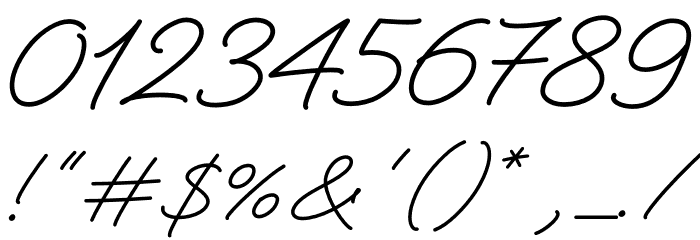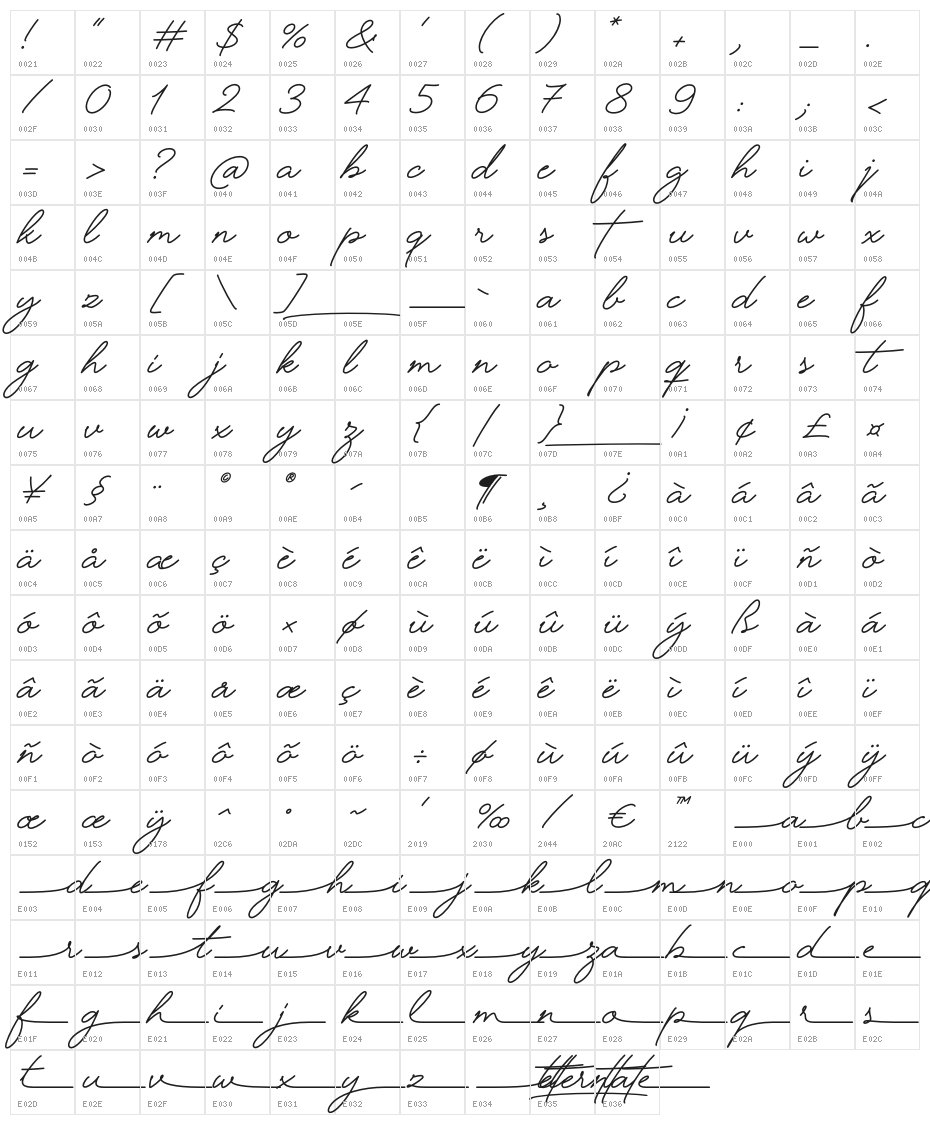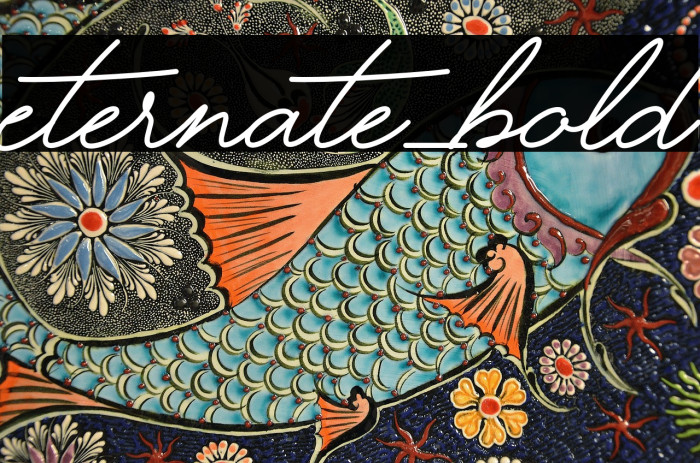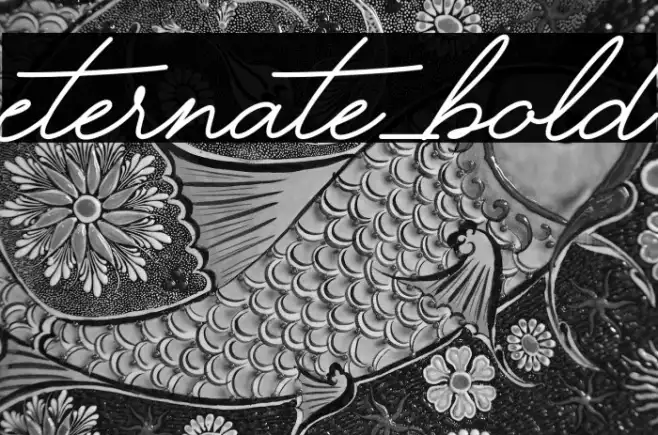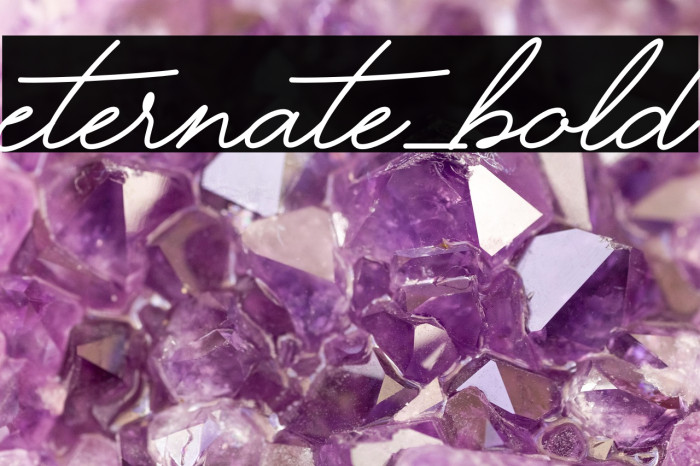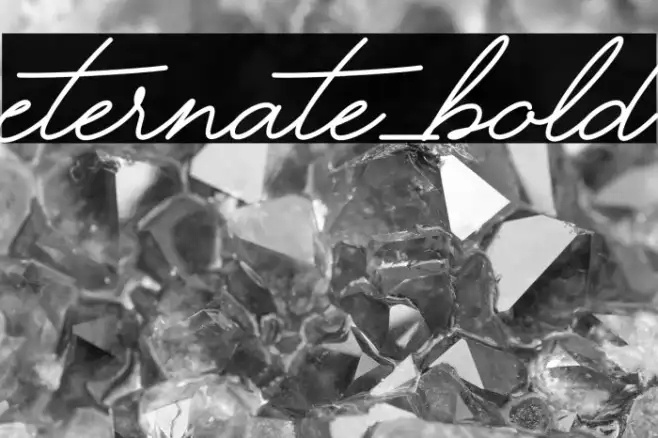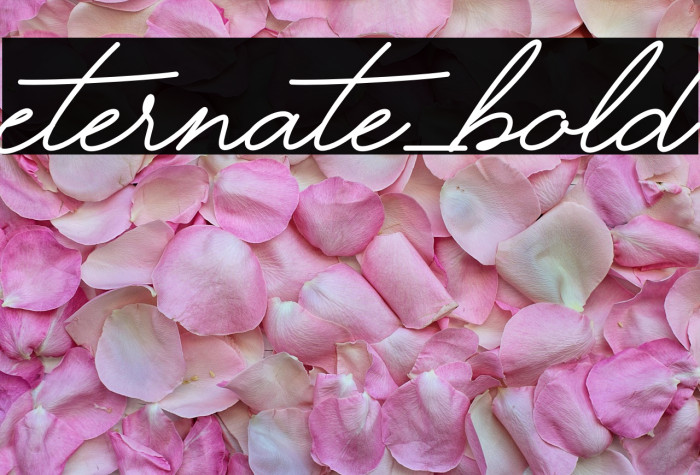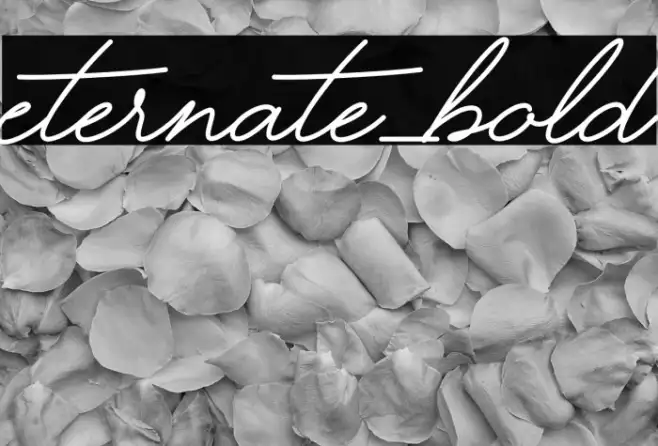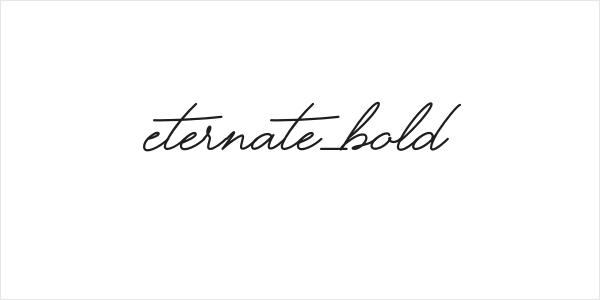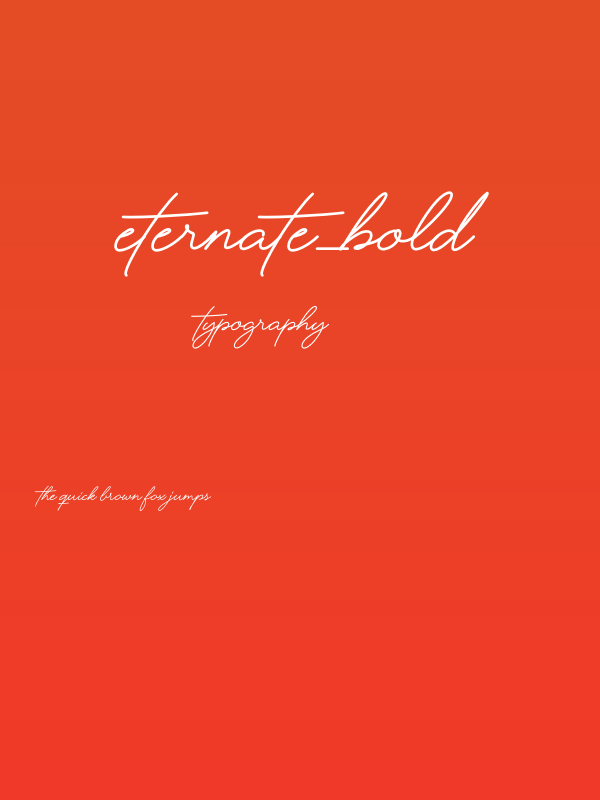
Eternate-Bold Font
Eternate-Bold Description
This font features a fluid and elegant cursive style, characterized by smooth, continuous strokes that mimic natural handwriting. The letters are interconnected, creating a seamless flow that enhances readability while maintaining an artistic flair. The uppercase letters are slightly larger and more pronounced, adding a touch of sophistication. The numerals are clear and consistent with the overall script style, making them easily distinguishable. Special characters are thoughtfully integrated, maintaining the font's cohesive appearance. This font exudes a sense of elegance and personal touch, making it ideal for projects that require a handwritten aesthetic.
Overall StyleElegant
Use CaseLogos, Invitations, Personal Branding
Proposed ProjectsIdeal for wedding invitations, greeting cards, personal branding, and elegant stationery.